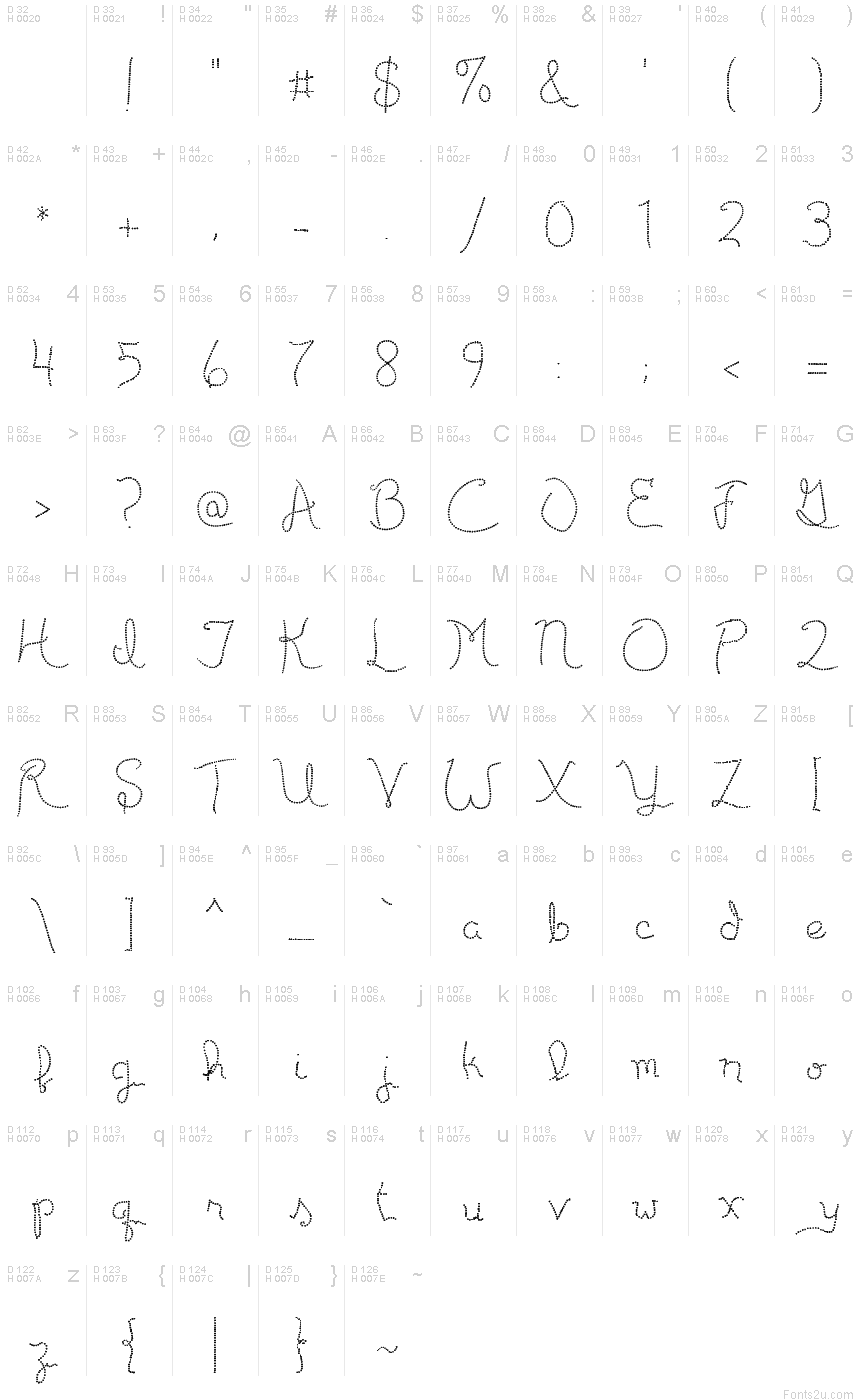
Publicite d'epoque Basic by Lauren Ashpole is a free handwritten font whose looping letters are traced with evenly spaced dots. Its loose joins, oversized curves, and wavering alignment recall lettering sketched for an old shop window or hand-painted advertisement, with the dotted construction giving every bend a playful, perforated texture.
Packaging is a convincing medium for it, especially on confectionery boxes, cafe labels, and nostalgic gift products where the dotted line can echo borders or patterns. It also suits theatre posters, boutique signage, and editorial features about vintage design.